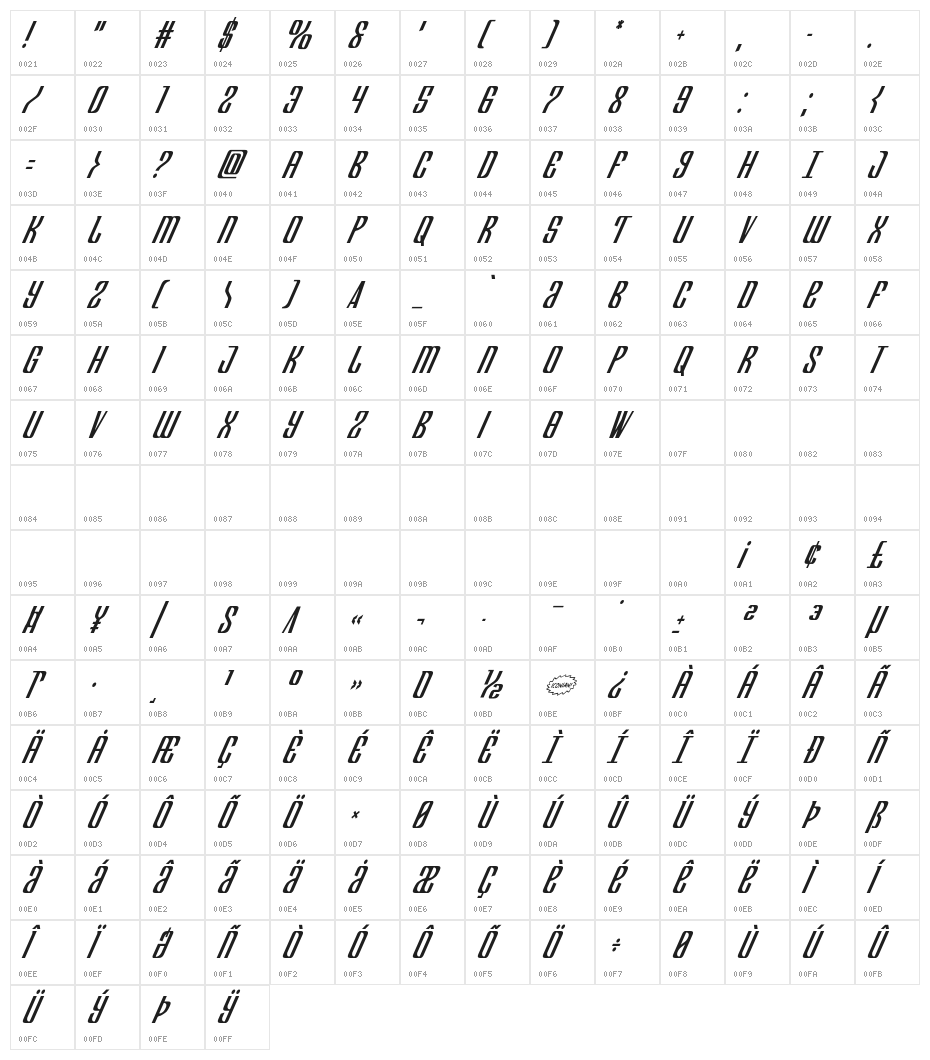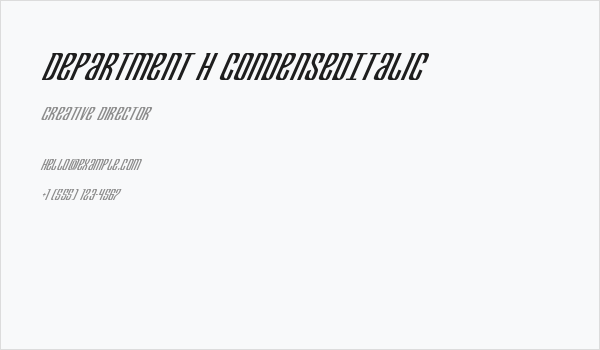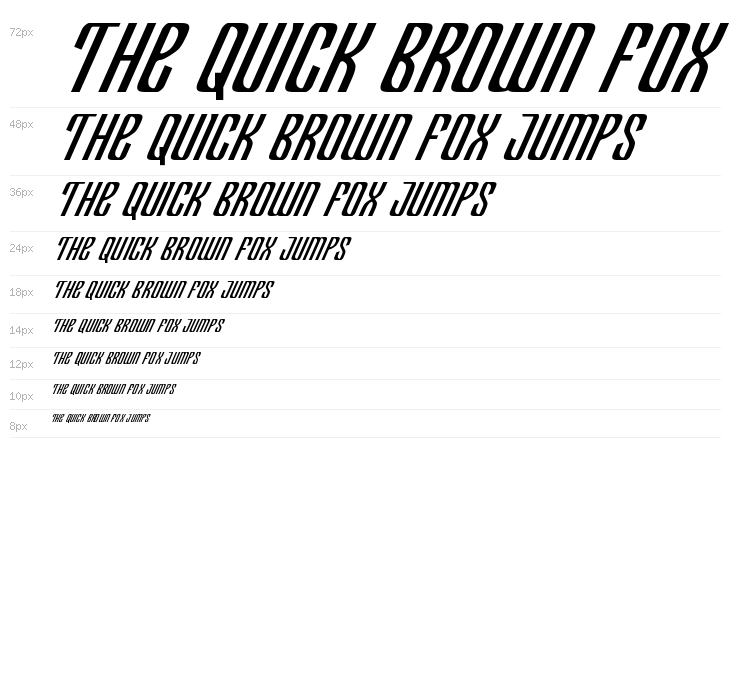
Department H CondensedItalic Font
Department H CondensedItalic Description
This font features a sleek and modern design with a condensed and italicized style. The characters are elongated and slightly slanted, giving a sense of motion and dynamism. The strokes are consistent in width, providing a uniform appearance across all characters. The uppercase and lowercase letters maintain a cohesive look, while the numbers and special characters are designed to complement the overall aesthetic. The font's condensed nature makes it suitable for space-saving applications, while the italic style adds a touch of elegance and sophistication.